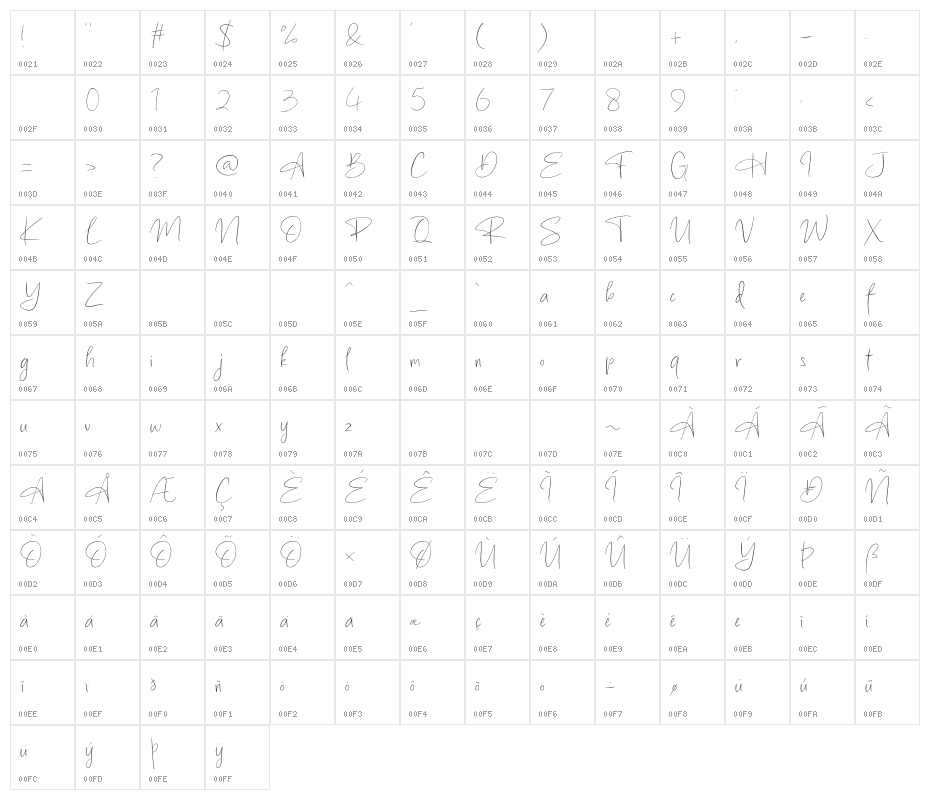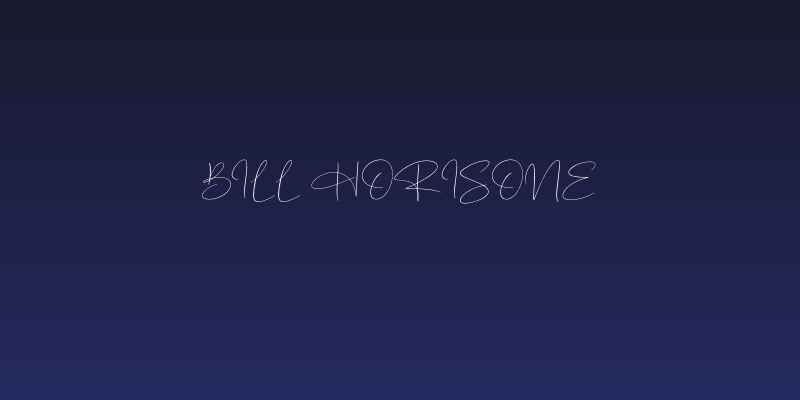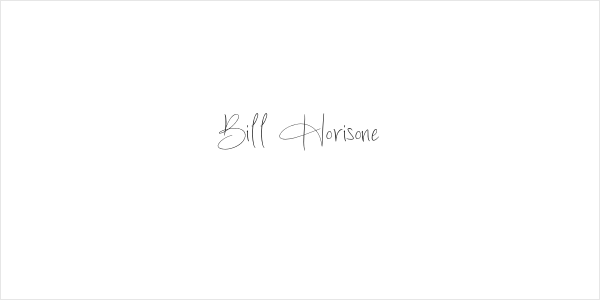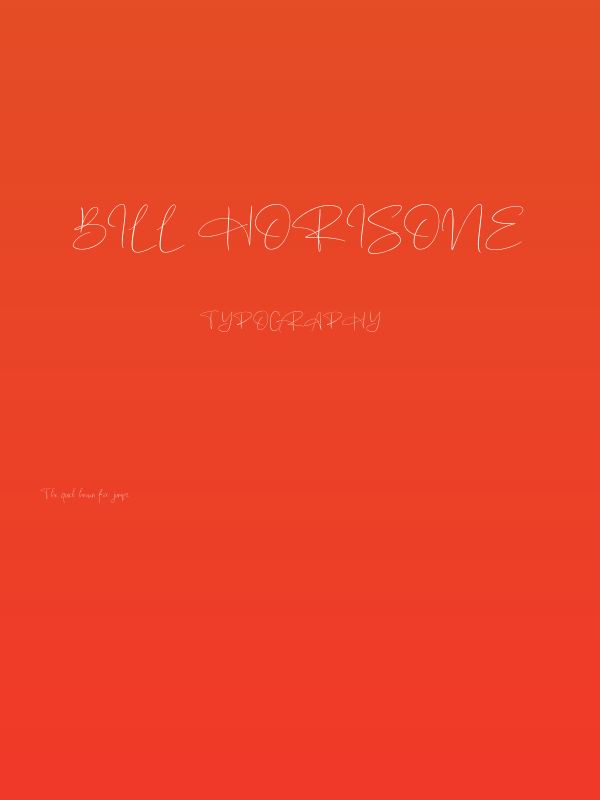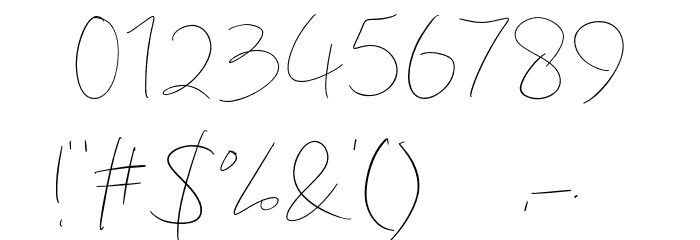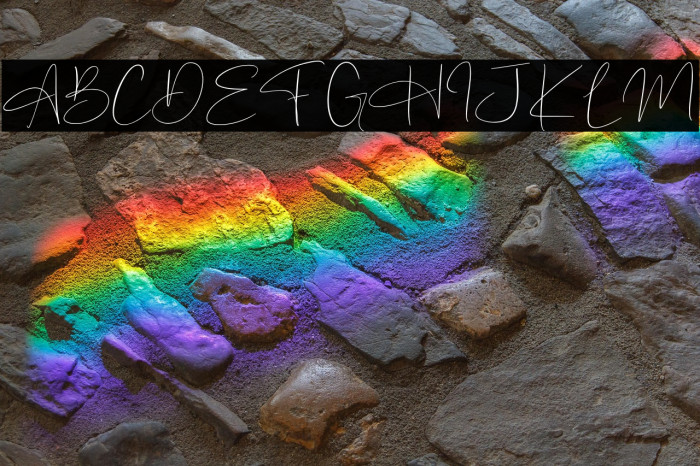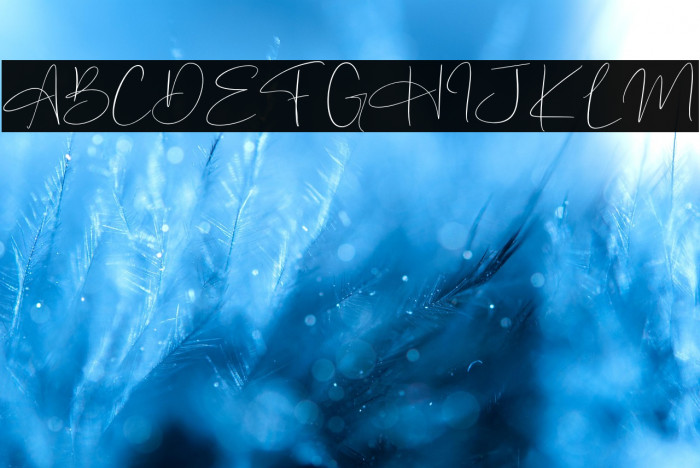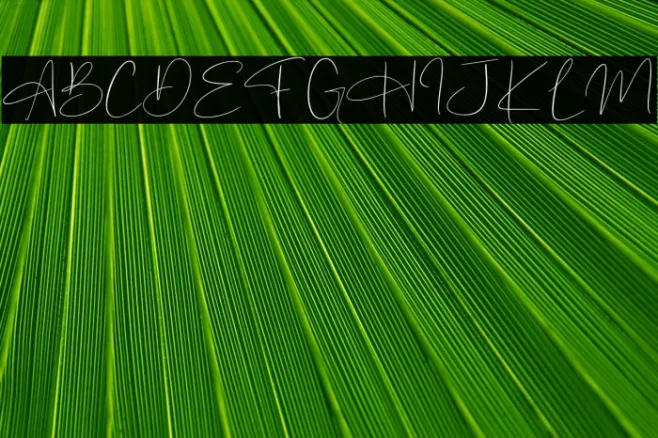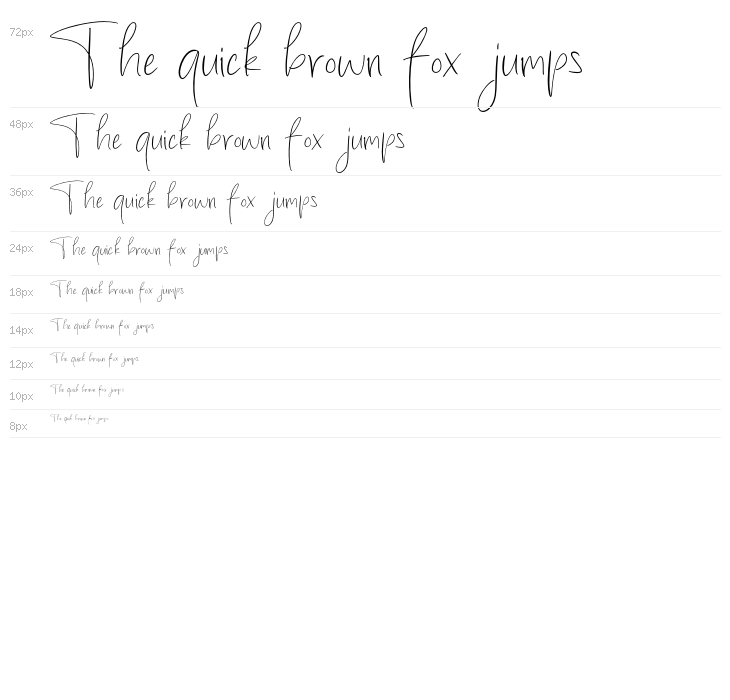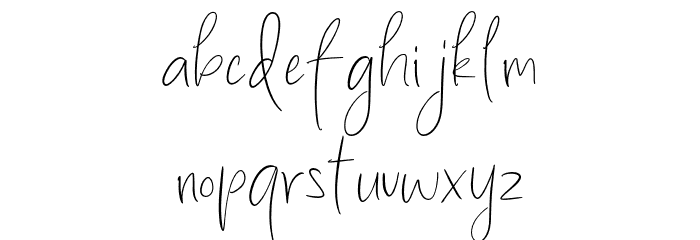
Bill Horisone Font
This font features a flowing, handwritten style that exudes elegance and a personal touch. The letters are crafted with a smooth, continuous stroke, giving it a natural and organic feel. The uppercase letters are slightly more structured, while the lowercase letters maintain a fluid and cursive appearance. The numerals are consistent with the overall style, maintaining the same graceful curves. Special characters are integrated seamlessly, enhancing the font's versatility. The thin strokes and delicate curves make it ideal for projects that require a personal or artistic flair.
| Overall Style | Elegant, Artistic |
| Proposed Projects | Ideal for wedding invitations, personal branding, artistic projects, and greeting cards. |